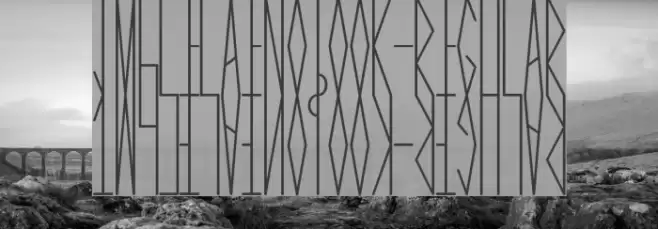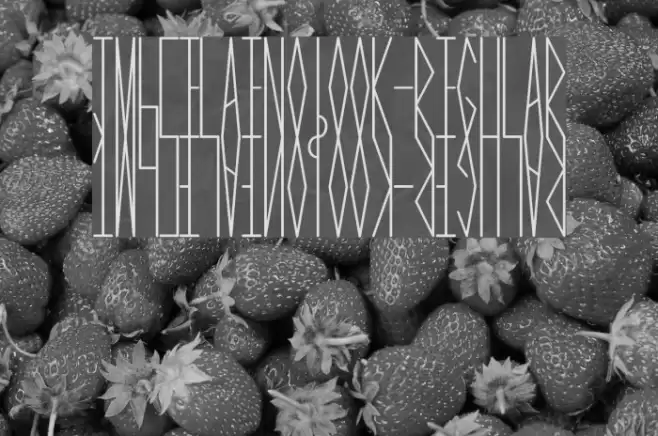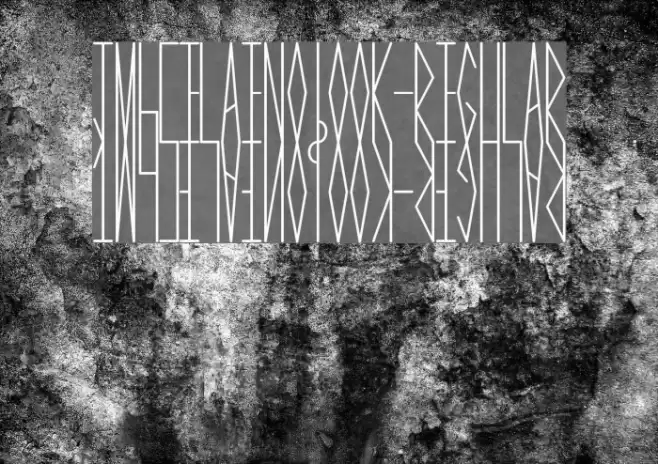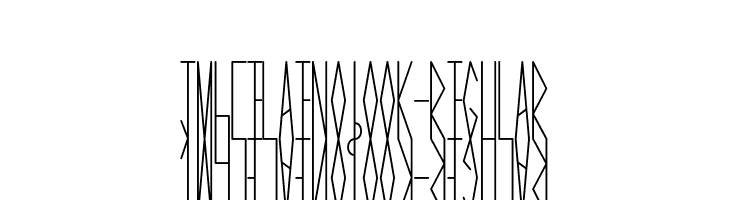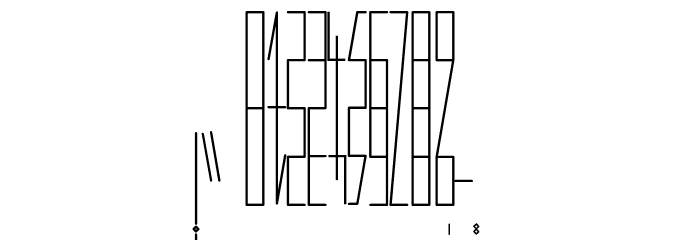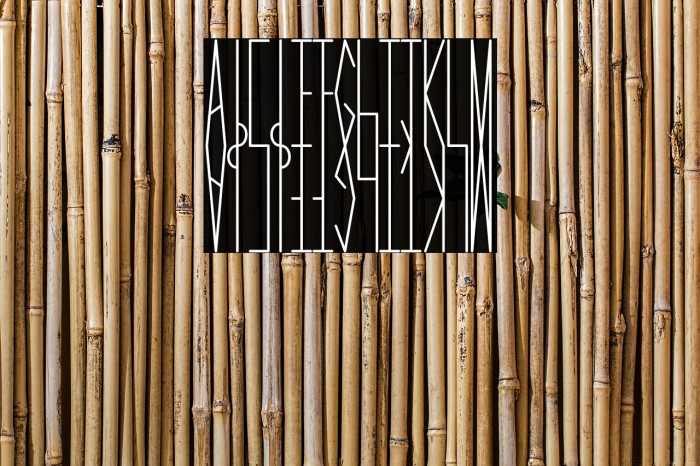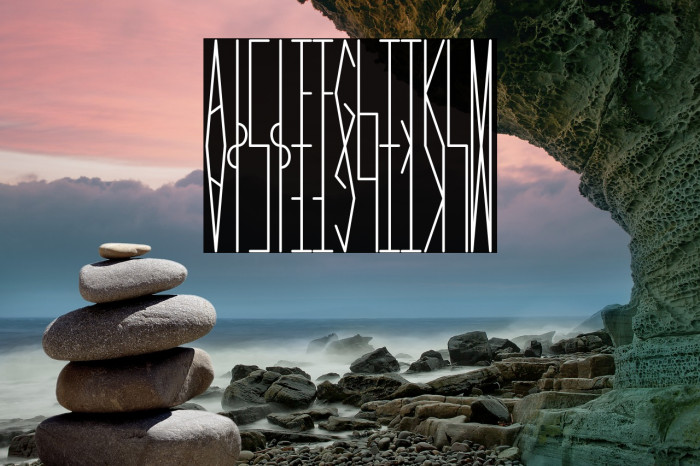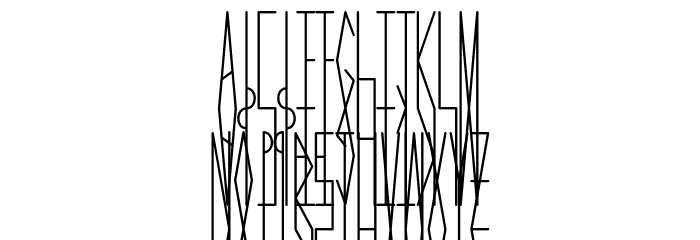
JMHCelaenoBook-Regular Font
JMHCelaenoBook-Regular Description
This font features a highly decorative and intricate design, characterized by elongated and narrow letterforms. The characters are interconnected with unique geometric patterns, creating a sense of complexity and elegance. The vertical alignment and sharp angles give it a modern and avant-garde appearance. Each letter is distinct, yet they all share a cohesive style that makes the font stand out. The numbers and special characters follow the same design principles, maintaining consistency throughout the set. This font is ideal for creative projects that require a bold and artistic touch.
A decorative and intricate font with elongated, geometric letterforms from Uncategorized fonts.
- Font: JMHCelaenoBook-Regular
by joorgemoron - Weight: Regular
- Proposed Projects: Ideal for artistic posters, avant-garde branding, and unique logo designs.
- Character Spacing: Tight
- Use Case: Logos, Headlines, Artistic projects